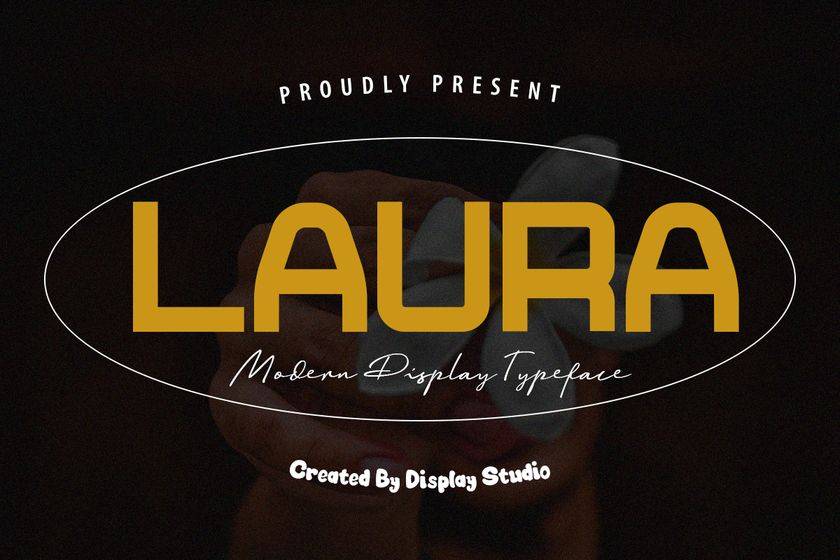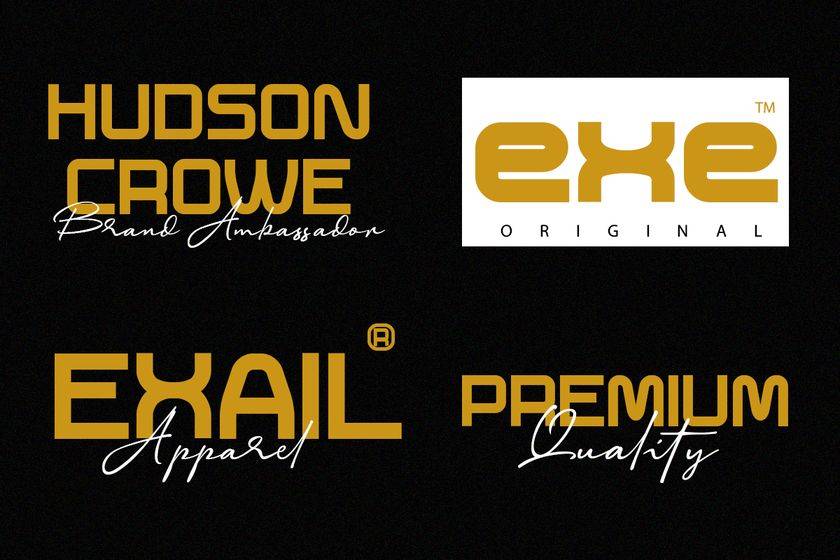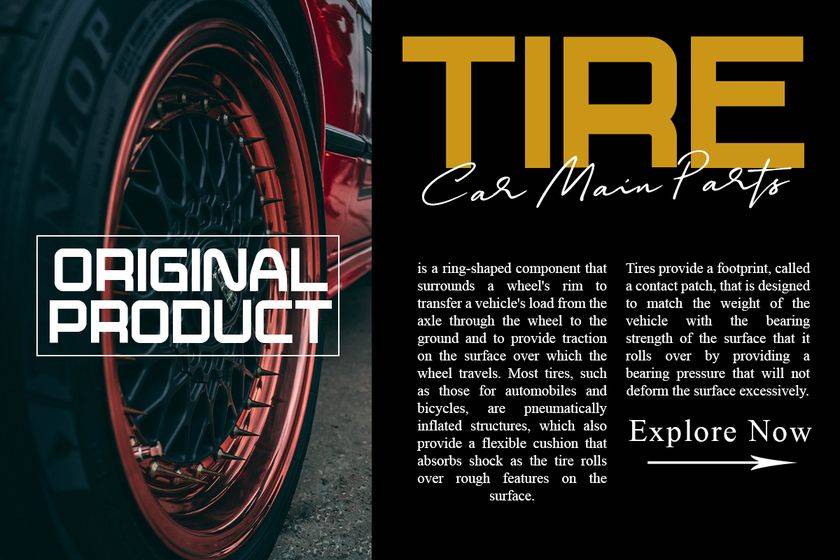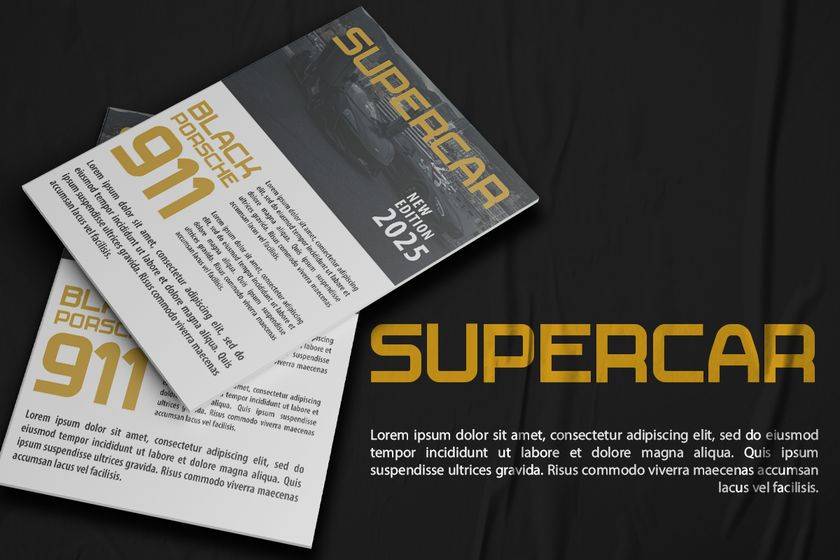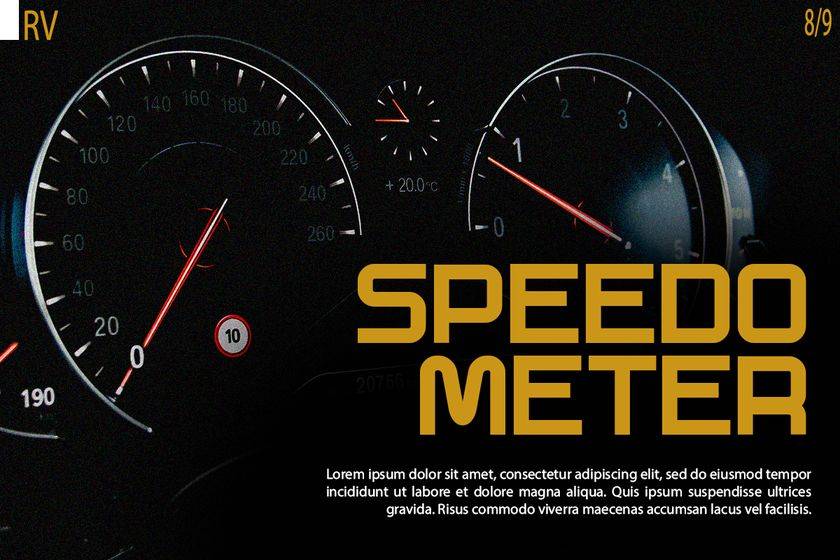
Laura Font is a bold, geometric sans serif with a modern and futuristic vibe, featuring sharp corners and a consistent stroke weight. Its compact width and square-like letterforms give it a strong, tech-inspired personality, ideal for headlines, branding, and digital interfaces where a clean, contemporary look is needed. This font works well for projects seeking a sleek, innovative feel with a slightly industrial edge.
Laura Font
About Laura Font